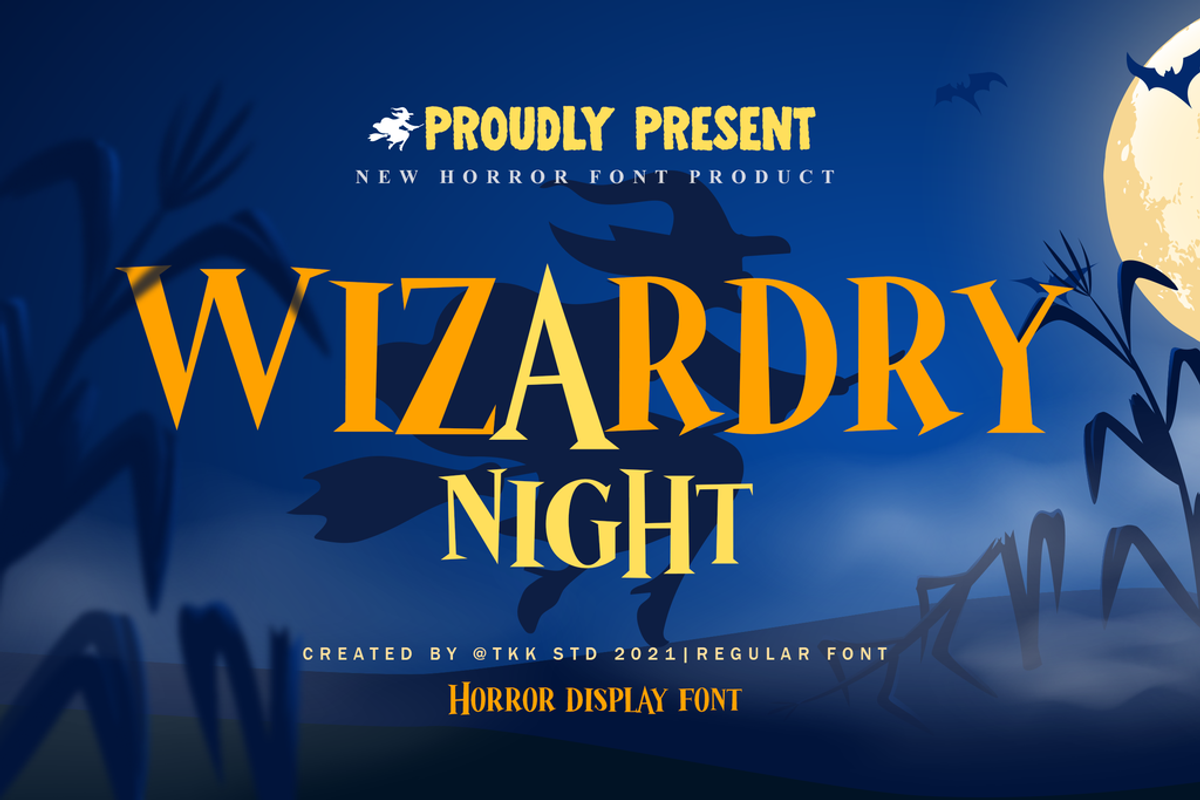
Wizardry Night - Movie Font Free Download is a bold, mystical typeface designed to evoke the magic and excitement of fantasy and adventure films. Inspired by movie titles and epic storytelling, this font features sharp, dramatic letterforms with a touch of enchantment. It’s perfect for creating cinematic logos, movie posters, book covers, and anything related to fantasy, magic, or adventure.
Whether you're designing for a fantasy-themed project, creating a movie promo, or working on a game design, Wizardry Night adds a magical, adventurous feel to your typography.